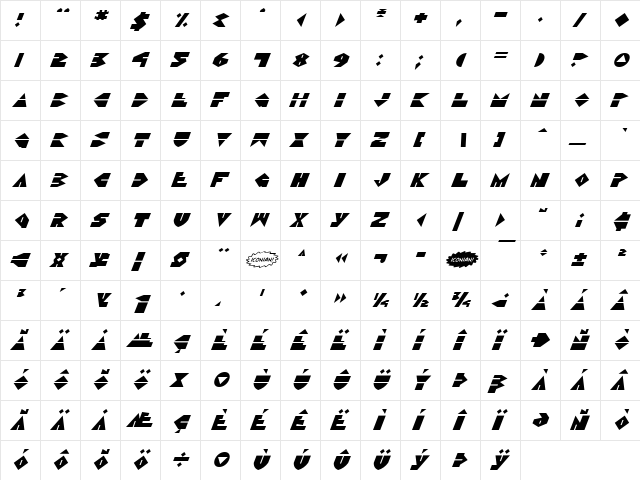
Disco Dork Italic Italic
Design Context for Disco Dork Italic Typeface
Disco Dork Italic is a composed and adaptable typeface that performs quietly and consistently across a wide range of design contexts. The dynamic lean of this cut emphasises speed and emphasis in any layout.
Pro Tip: Try Disco Dork Italic for annotation and caption copy alongside an upright companion — the contrast in angle creates a dynamic but ordered typographic system.